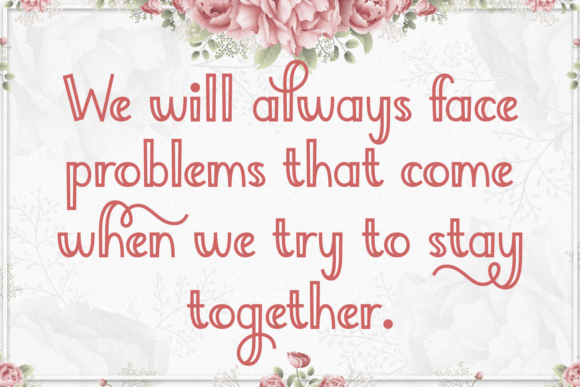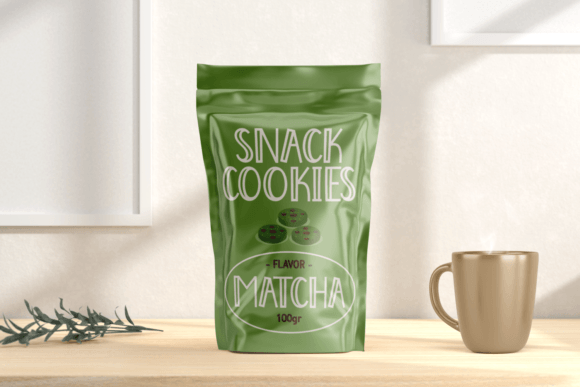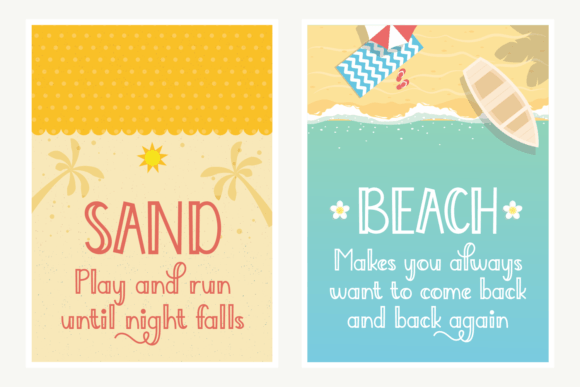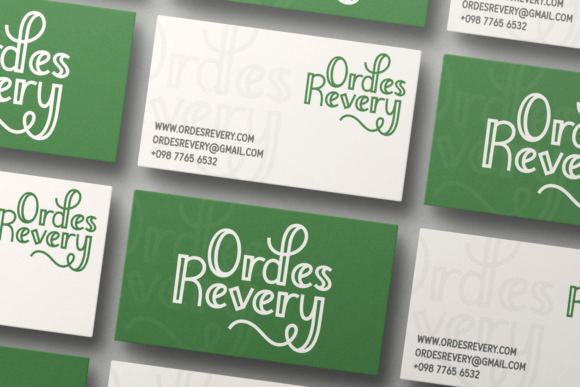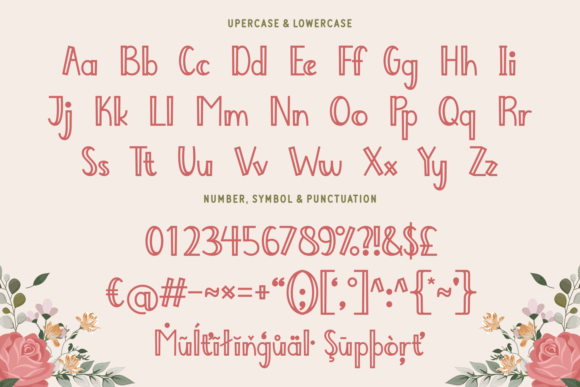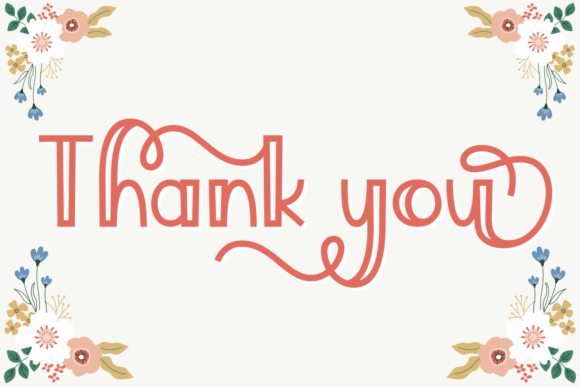
Unlock the Artistic Potential of Your Designs
Have you ever stared at a blank canvas, notebook, or computer screen, waiting for the perfect spark of creativity to strike? The moment when words start flowing, and your ideas begin to take shape, is truly magical. It’s a feeling that designers know all too well, and it’s precisely this feeling that the Barelyna Font is designed to evoke.
Barelyna Font is a stunning, handwritten display font that adds an air of elegance and sophistication to any project. Whether you’re working on a branding campaign, creating a wedding invitation, or designing a novel cover, this font is sure to leave a lasting impression. With its natural, flowing style, Barelyna Font is a valuable tool for designers looking to add a touch of authenticity to their work.
Barelyna Font Key Features
- Unique Characteristics: Elegant, modern script font with a touch of whimsy, suitable for creative projects, invitations, and branding materials
Barelyna Font Review
Overall, I think the Barelyna font has some great qualities that make it a solid choice for certain projects. ✨ One of the things that stands out is its elegant and refined aesthetic, which would be perfect for high-end branding or luxury product design. The font’s curves and lines are well-balanced, making it easy on the eyes.
Another advantage of the Barelyna font is its versatility. ✨ It comes in a range of weights and styles, allowing designers to experiment with different looks and moods. This makes it a great choice for projects where you need to convey a sense of sophistication and elegance.
While the Barelyna font has its strengths, there are a few limitations that are worth noting. ⚠️ One of the main issues is that it can look a bit generic at smaller font sizes. This might be a problem for designers who need to use the font in situations where readability is a top priority.
Overall, I think the Barelyna font is a solid choice for designers who need a sophisticated and elegant font for their projects. While it may have some limitations, its strengths make it a great option for luxury branding, high-end product design, and other situations where a refined aesthetic is key.
- Elegant and refined aesthetic
- Versatile and comes in a range of weights and styles
- Perfect for high-end branding and luxury product design
- Can look generic at smaller font sizes
Getting the Most Out of Barelyna Font
To get the most out of the Barelyna Font, consider the following tips:
- Use it for creative and artistic projects.
- Combine it with other unique fonts for a distinctive look.
- Experiment with different font sizes and styles.
The Barelyna Font is commonly used for:
- Artistic and creative projects.
- Marketing materials and branding.
Alternatives to Barelyna Font
Carolyna Pro is a modern sans-serif font designed for digital use. It’s ideal for headings and titles due to its bold and elegant feel. When to use: For creating a sophisticated and high-end brand identity.
Comparison: Carolyna Pro is more geometric and modern compared to Barelyna Font’s more classic and elegant feel. It’s also more versatile and can be used in a variety of contexts, from corporate to fashion branding.
Montserrat is a sans-serif font inspired by urban typography. It’s perfect for use in titles, headings, and body text due to its clean and modern design. When to use: For creating a sleek and urban brand identity.
Comparison: Montserrat is more minimalist and industrial compared to Barelyna Font’s classic and elegant feel. It’s also more suitable for digital use and can be used in a variety of contexts, from fashion to technology branding.
Great Vibes is a modern sans-serif font with a friendly and approachable feel. It’s ideal for use in titles, headings, and body text due to its clean and legible design. When to use: For creating a relaxed and friendly brand identity.